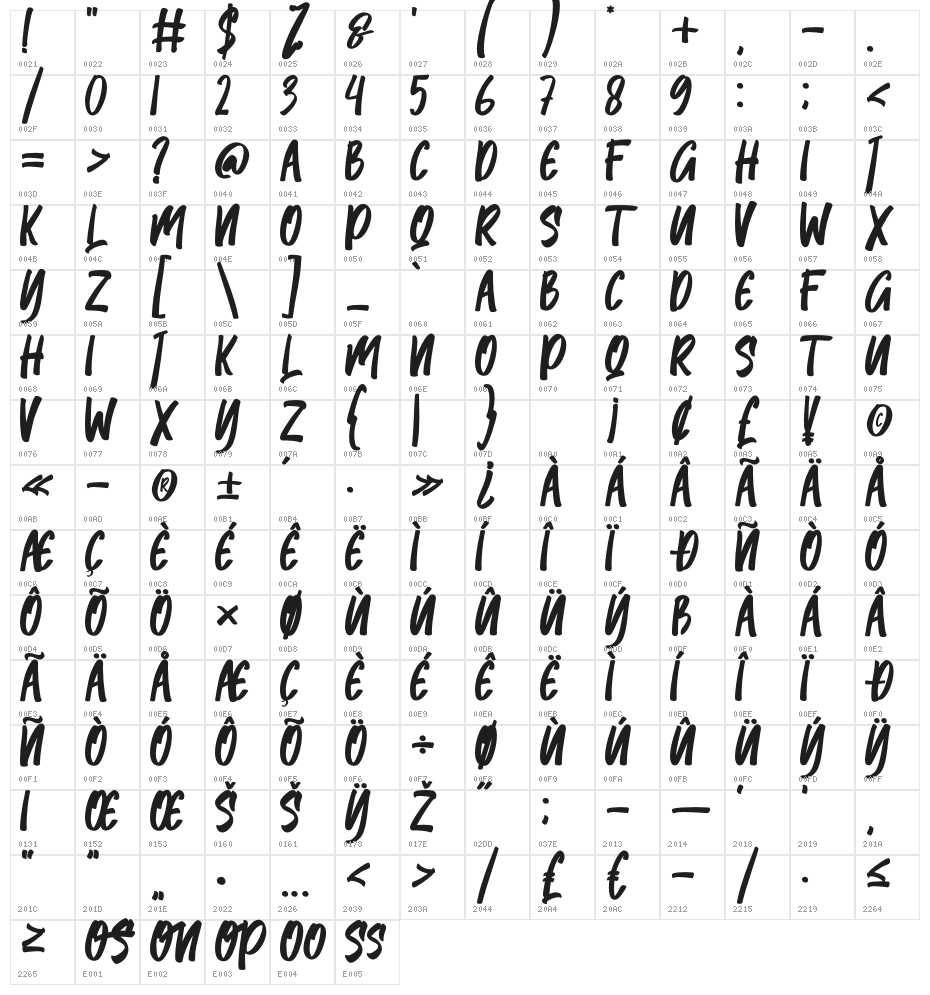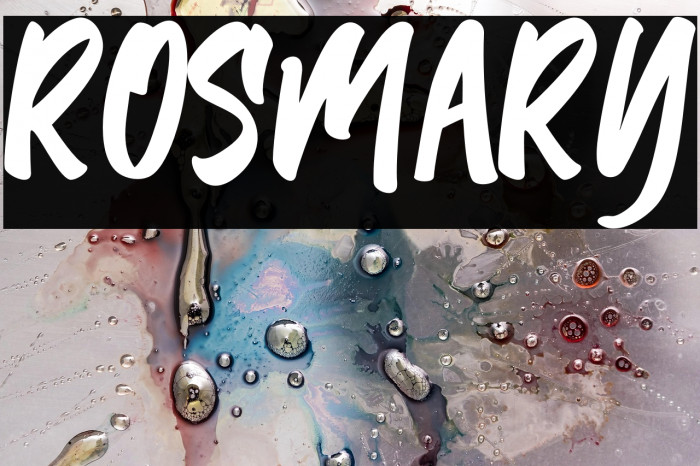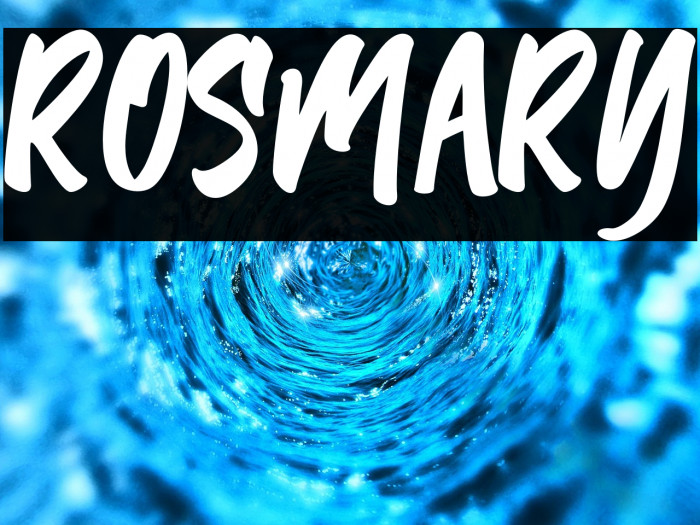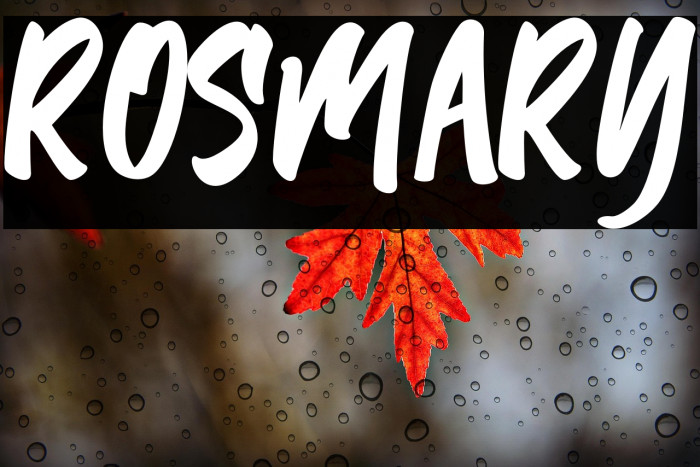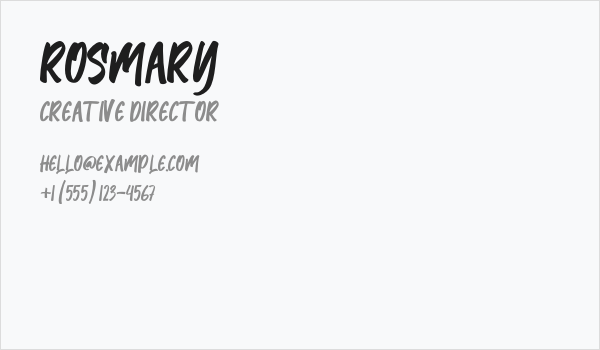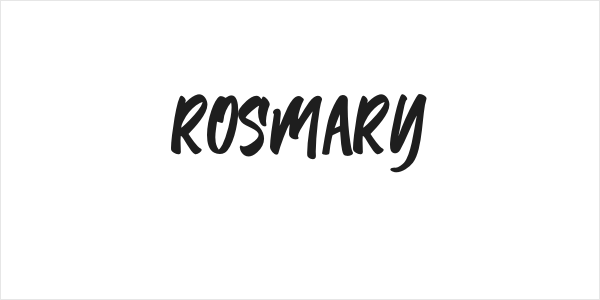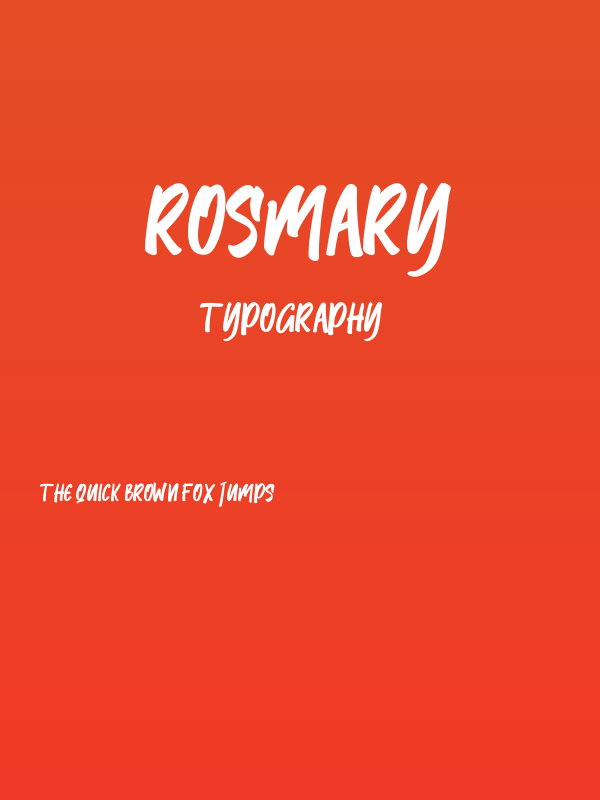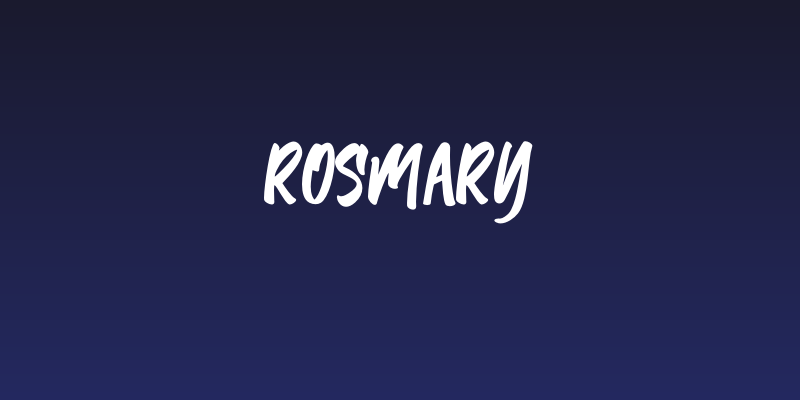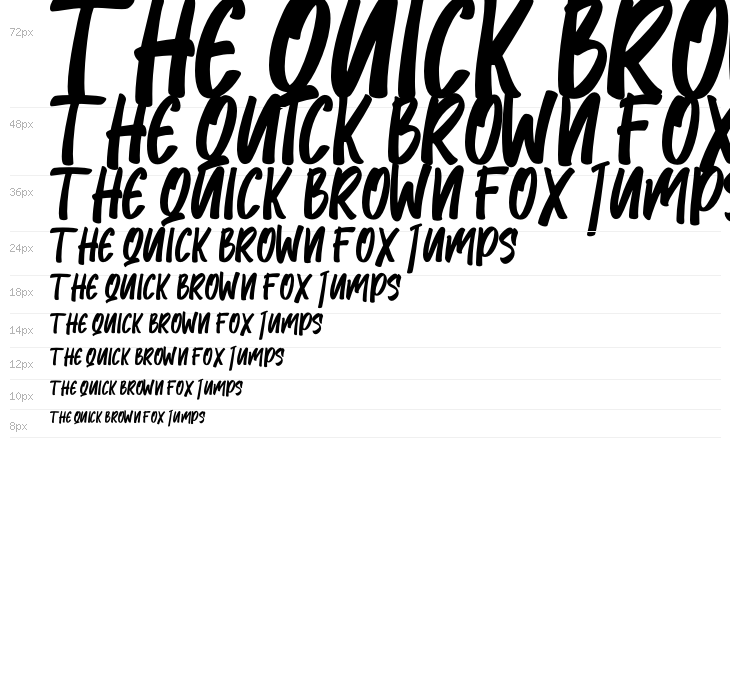
Rosmary Font
Rosmary Description
This font features a bold, handwritten style with a dynamic and energetic appearance. The letters are slightly slanted, giving a casual and informal feel. The strokes are thick and consistent, providing a strong visual impact. The characters are closely spaced, enhancing the cohesive look of the text. The font includes both uppercase and lowercase letters, numerals, and a variety of special characters, making it versatile for different design needs. Its playful and lively nature makes it suitable for projects that require a personal touch.
| Proposed Projects | Ideal for branding, social media graphics, posters, and invitations where a personal and lively touch is desired. |